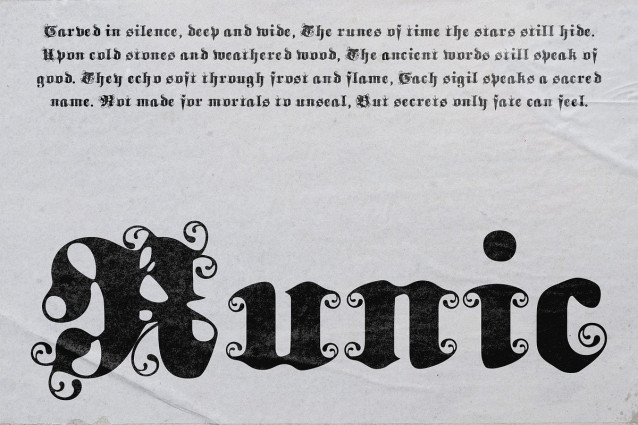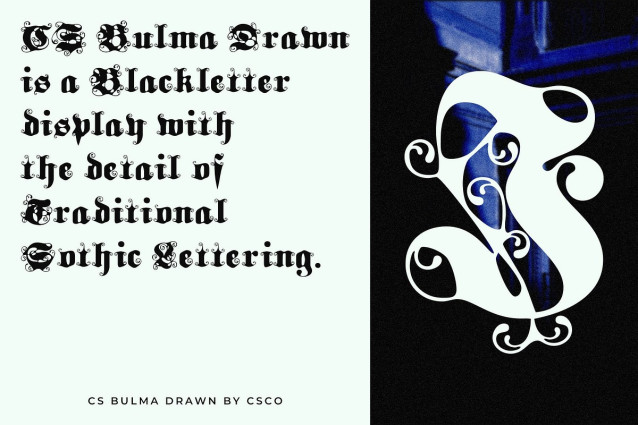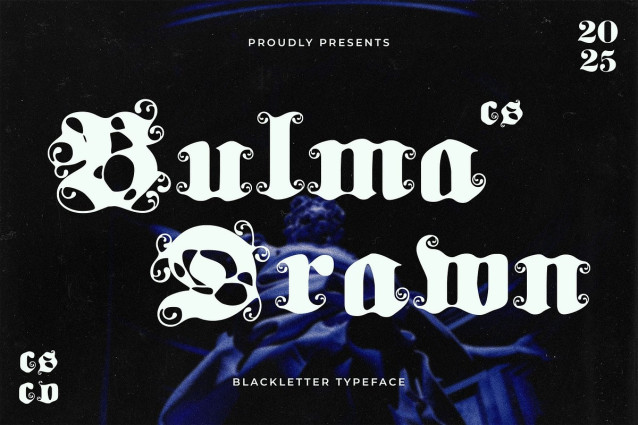
CS Bulma Drawn Font
CS Bulma Drawn Font is a blackletter-style display font that showcases sharp, bold, and ornamental letterforms inspired by classic medieval typography. Its structure reflects the drama and elegance of traditional Gothic scripts, delivering a strong and timeless visual impact perfect for edgy and expressive design work.
Hand-Drawn Effect for Artistic Character What sets this bold font apart is its drawn effect, which mimics handcrafted pen strokes. This detail introduces a sense of texture and organic imperfection that adds warmth and personality. The illustrative lines enhance its visual richness, creating a font that feels both raw and artistically intentional.
Expressive, Raw, and Visually Distinctive The combination of Gothic form and hand-drawn texture makes this dramatic font feel artistic, raw, and deeply expressive. It breaks away from rigid traditional forms, embracing a bolder and more experimental aesthetic. This makes it ideal for creative projects that aim to push boundaries while still honoring historic type traditions.
Perfect for Bold, Alternative, and Artistic Projects Ideal for metal music graphics, vintage-style branding, experimental posters, editorials, or any creative visual content that demands a strong, alternative voice. This unique font invites attention and adds a layer of bold artistry to every project it touches.